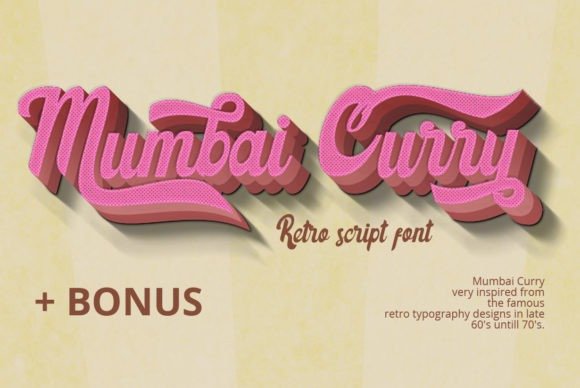
Mumbai Curry Script Font
Mumbai Curry Script Font also comes with extra Extruded and Outline Font versions. as a function to create an extrusion effect for this font. It’s designed and shared by anomali.bisu. Mumbai Curry feels playfully nostalgic and delivers an incredible vintage aesthetic. Use this display font to add that special retro touch to any design idea you can think of!